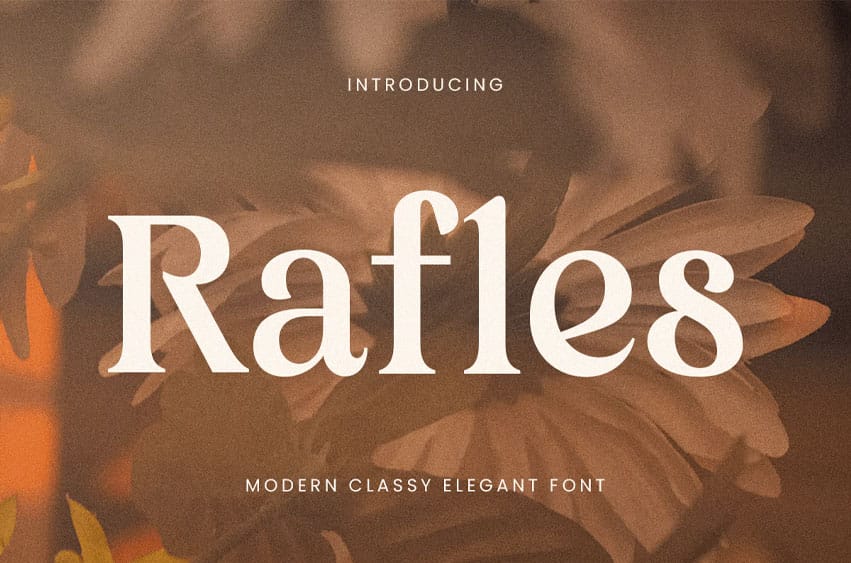
Rafles Font is a modern, classy, elegant font that blends timeless sophistication with a contemporary edge. Designed for high-end branding, luxury logos, and refined editorial design, RAFLES offers a sleek and elegant look that commands attention without overwhelming the design.
Whether you’re creating a logo for a luxury brand, an upscale fashion label, or an elegant wedding invitation, RAFLES brings a touch of class to any project. Its clean lines and graceful curves ensure that your designs exude professionalism and refinement, while its versatility makes it suitable for both digital and print applications.
RAFLES – Modern Classy Elegant Font Features
- Sleek and modern letterforms with an elegant touch
- Perfect for luxury branding, fashion, and high-end logos
- Includes uppercase, lowercase, numerals, and punctuation
- Clean, sophisticated design with minimalist appeal
- OpenType features for advanced typographic styling
Bring elegance and sophistication to your designs with RAFLES – the perfect font for modern luxury branding.